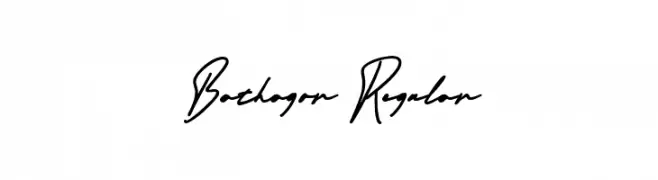
• Bathagor Regular
( Fonts by Amir Subqi Setiaji )
A bold, playful font with a hand-drawn feel and creative special characters.
• Beatney Regular
( Fonts by Bangkit Tri Setiadi - Personal-use only. For commercial use please contact owner. )
A modern, handwritten cursive font with a fluid and elegant style.
• Beautiful Roses
( Fonts by Bangkit Tri Setiadi - Personal-use only. For commercial use please contact owner. )
An elegant serif font with decorative flourishes and a classic yet modern appeal.
• Beautiful Roses Script